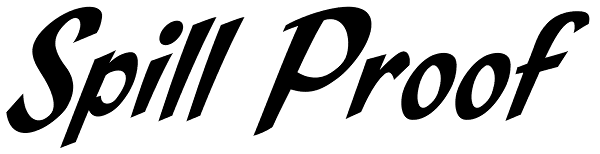
SpillProof
Put on your top hat, tie up your white tie, brush off your tails and surrender your serifs at the door! We've popped open a bottle of French Champagne for you, but don't worry, because our latest stylishly handsome, devilishly clever offering...